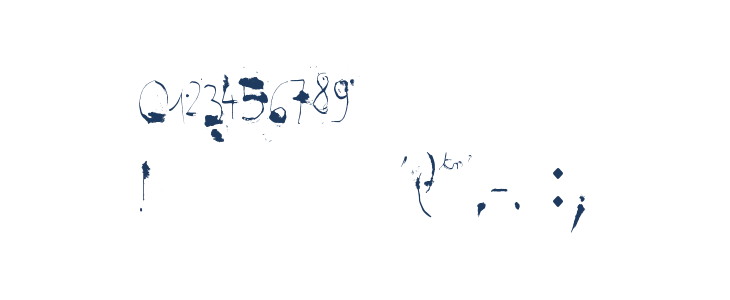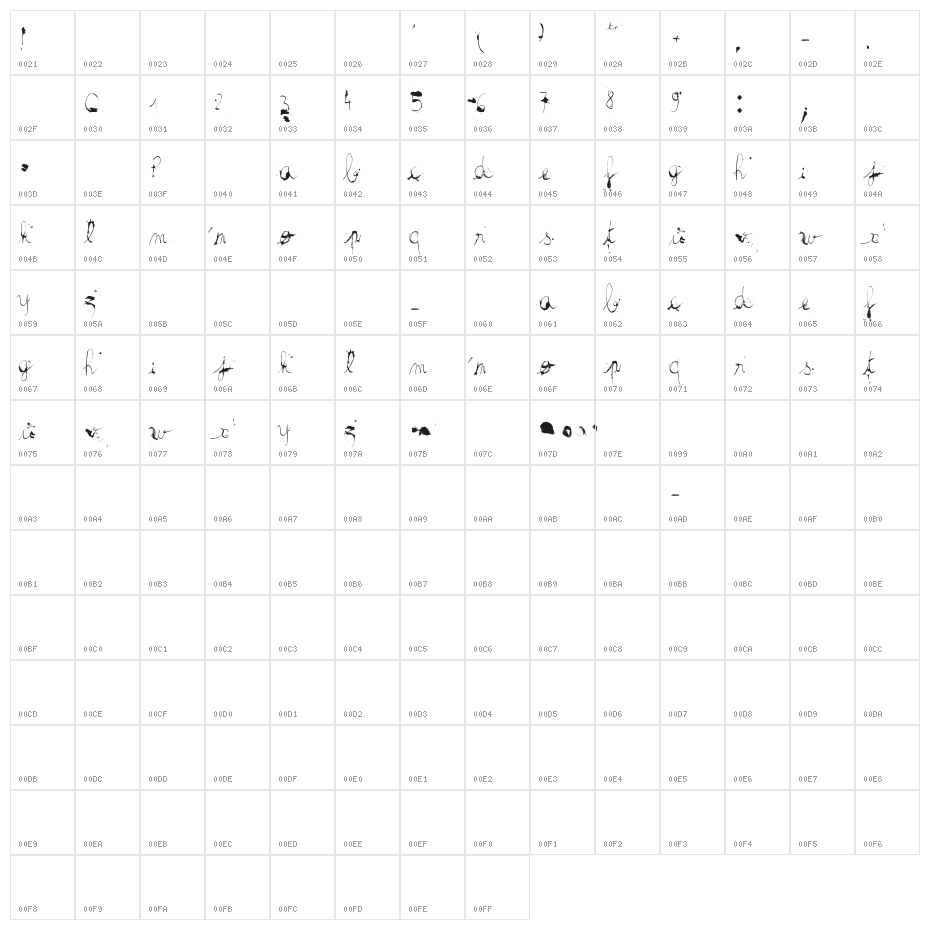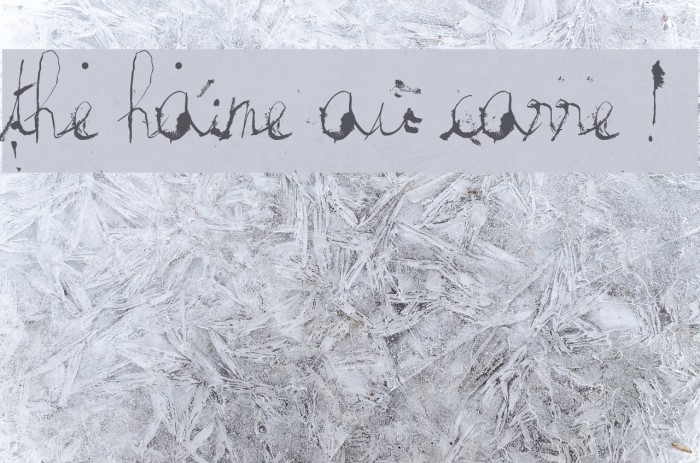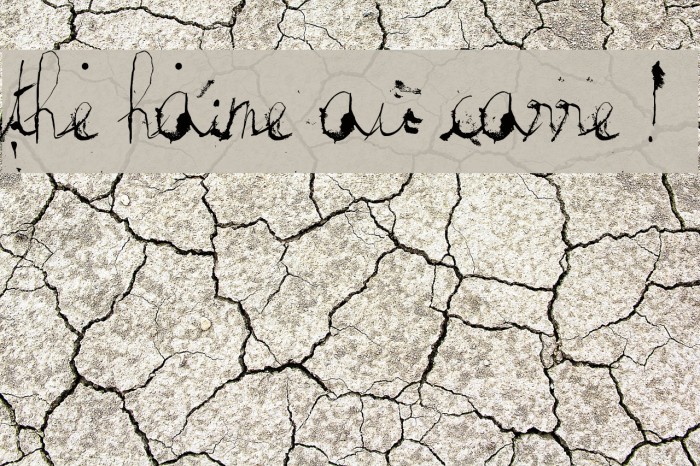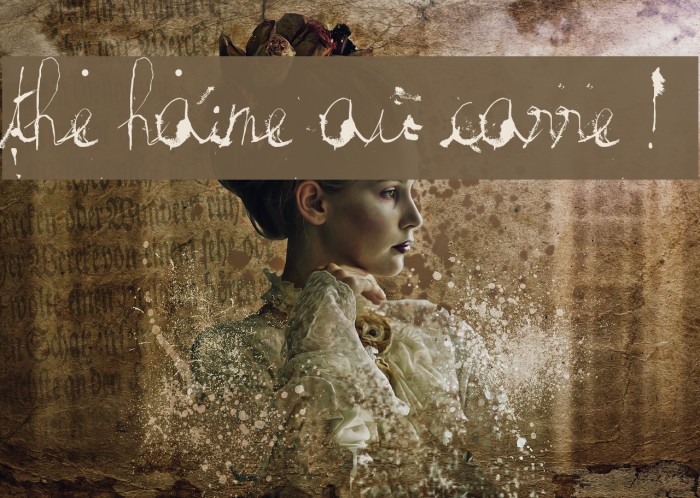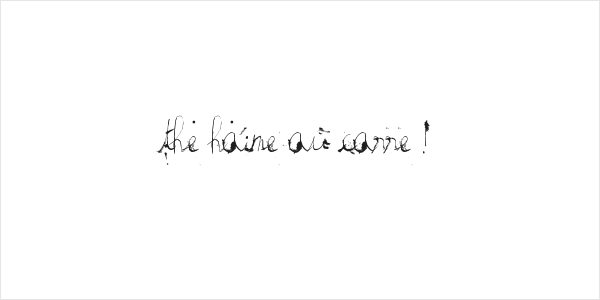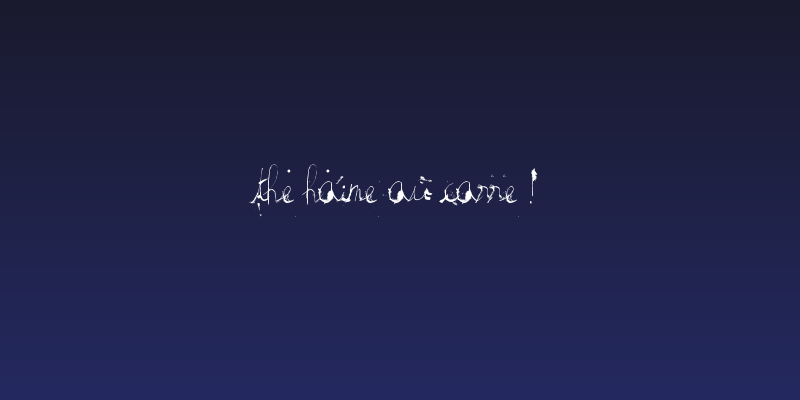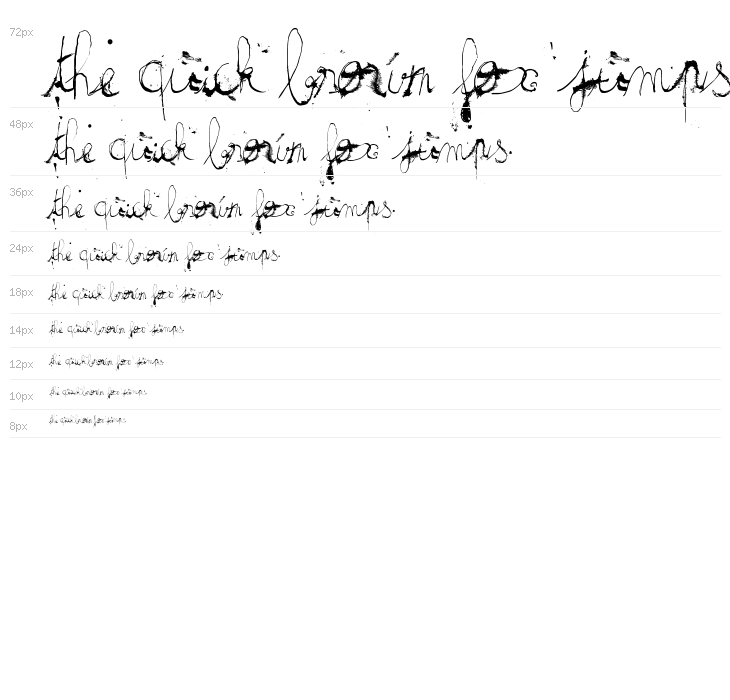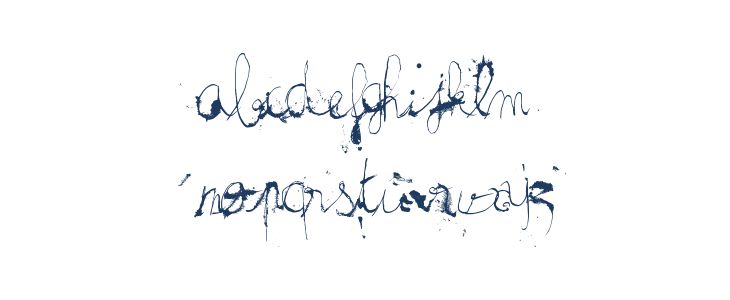
the haine au carre ! Font
the haine au carre ! Description
This font exhibits a highly expressive and artistic style, characterized by its erratic and splattered ink appearance. The letters are connected in a cursive manner, yet each character maintains its own distinct form. The irregularities in the strokes give it a raw, hand-drawn feel, reminiscent of abstract art. The font's chaotic nature is balanced by its fluidity, making it visually captivating. The numbers and special characters follow the same artistic theme, adding to the overall cohesive look. This font is ideal for projects that require a bold, artistic statement.
| Overall Style | Artistic, Abstract |
| Use Case | Logos, Artistic headlines, Creative projects |
| Proposed Projects | Artistic posters, album covers, creative branding, and experimental design projects. |